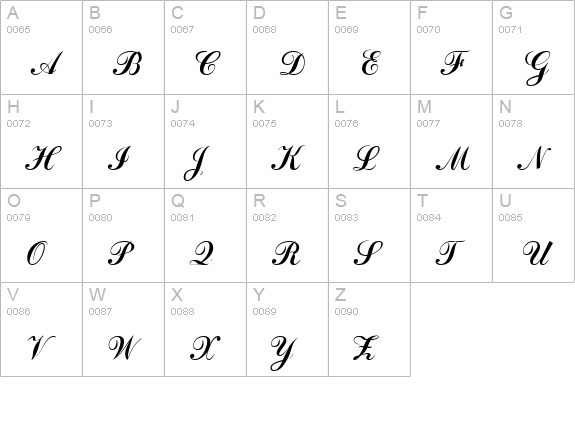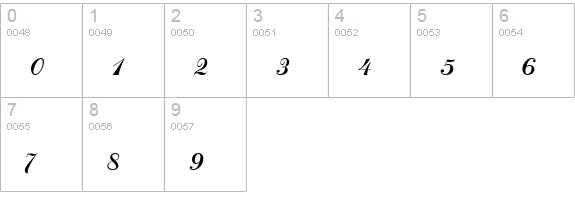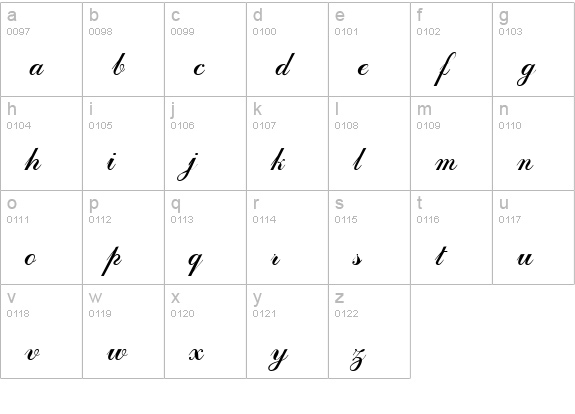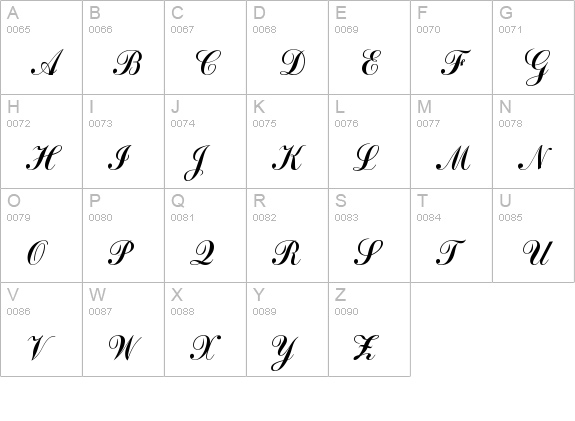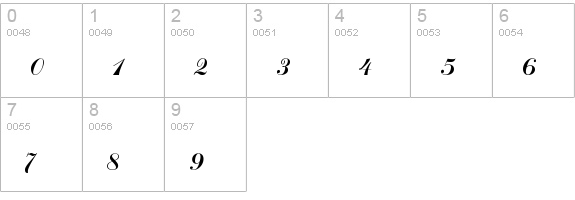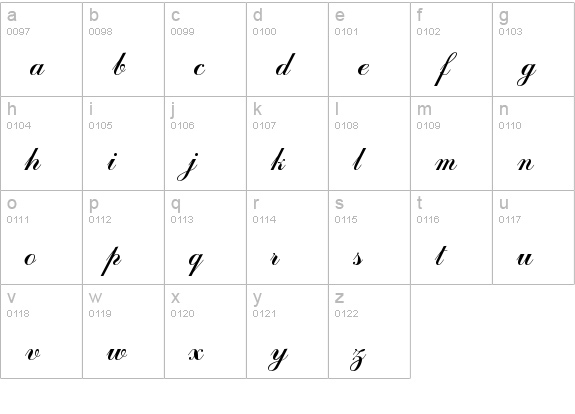
Dahling Script SSi font is a stunning and elegant typeface that effortlessly captures the essence of sophistication. With its gentle and flowing curves, this font exudes a sense of grace and charm, making it perfect for any project that requires a touch of elegance. Designed with meticulous attention to detail, Dahling Script SSi font brings a sense of timeless beauty to any design. Whether used for wedding invitations, branding materials, or elegant signage, this font adds a touch of class and refinement that is sure to impress. One of the most remarkable aspects of Dahling Script SSi font is that it is available for free. Yes, you read that right - this exquisite font can be downloaded and used without any cost. This makes it an ideal choice for designers, students, and anyone looking to add a touch of elegance to their creations without breaking the bank. To download Dahling Script SSi font for free, simply visit FontsMarket.com, a trusted source for high-quality fonts. With just a few clicks, you can have this stunning font at your fingertips, ready to elevate your designs to new heights. So, whether you're working on a wedding invitation, a logo design, or a branding project, Dahling Script SSi font is the perfect choice. Its free availability, combined with its timeless beauty, makes it a font that you simply can't miss out on. Download it today and discover the elegance and sophistication that this font brings to your designs.